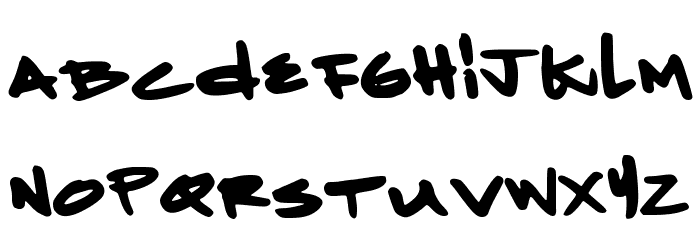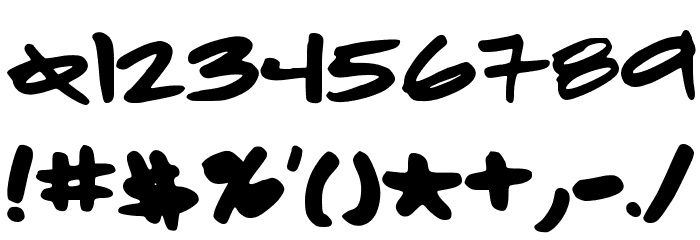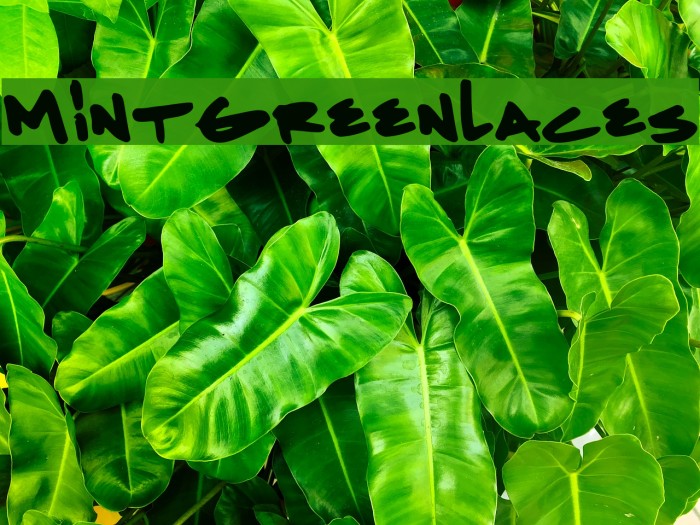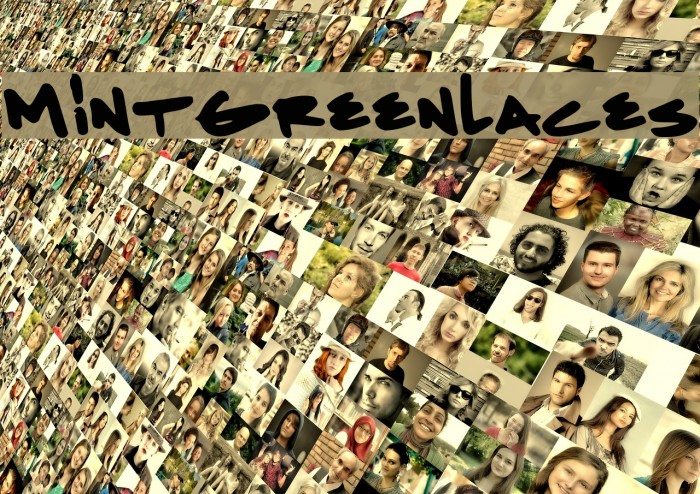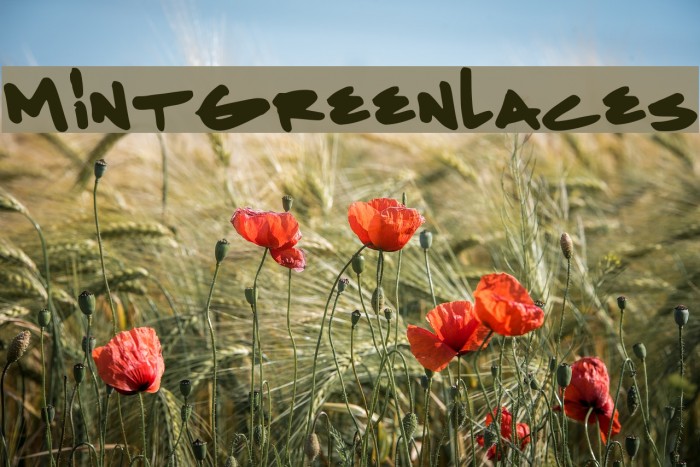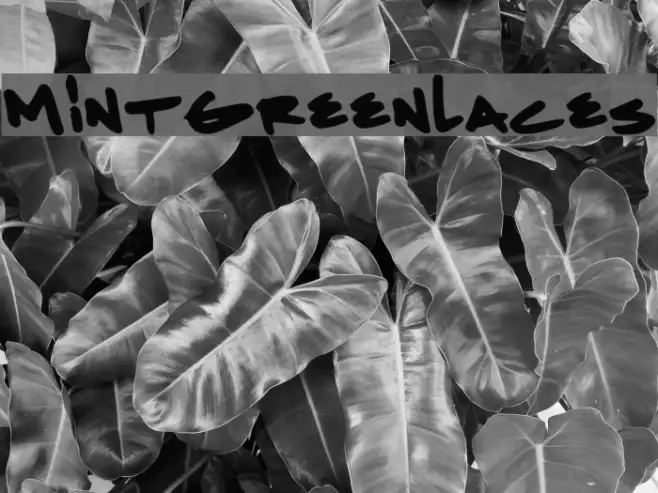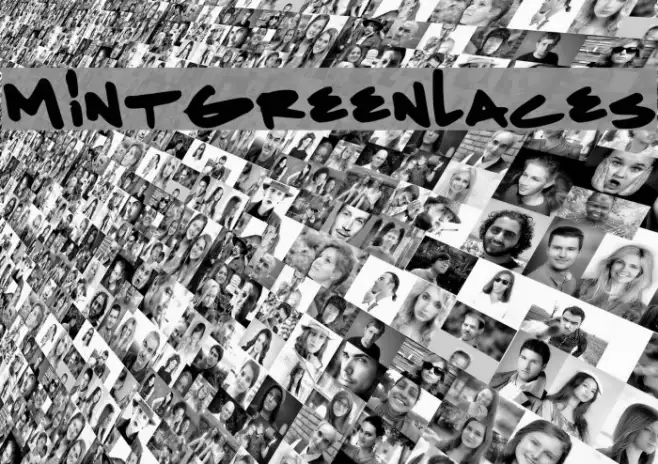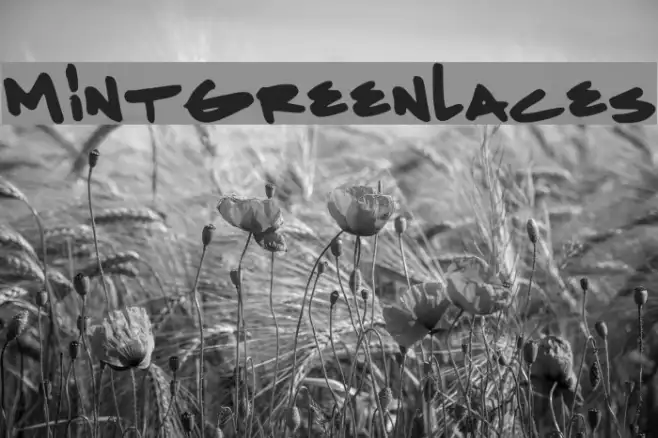
MintGreenlaces Font
This font features a bold, handwritten style with a playful and energetic appearance. The letters are thick and rounded, giving a sense of informality and approachability. The strokes are consistent in weight, contributing to a cohesive look across all characters. The uppercase and lowercase letters maintain a uniform style, with slight variations that add to the handwritten feel. Numbers and special characters are equally bold and expressive, making them stand out. This font is ideal for projects that require a personal touch or a casual, friendly vibe.
- Proposed Projects: Ideal for greeting cards, posters, social media graphics, and branding that requires a personal touch.
- Overall Style: Playful, Casual